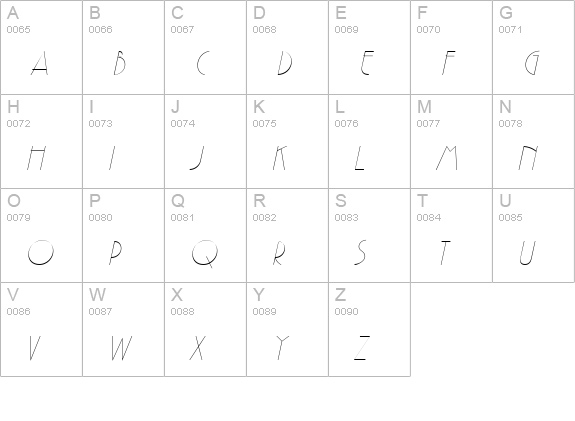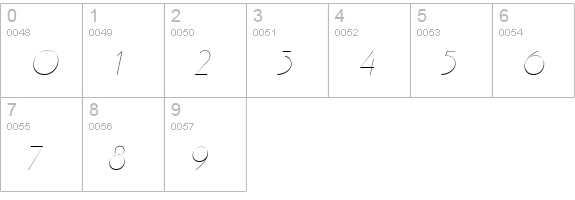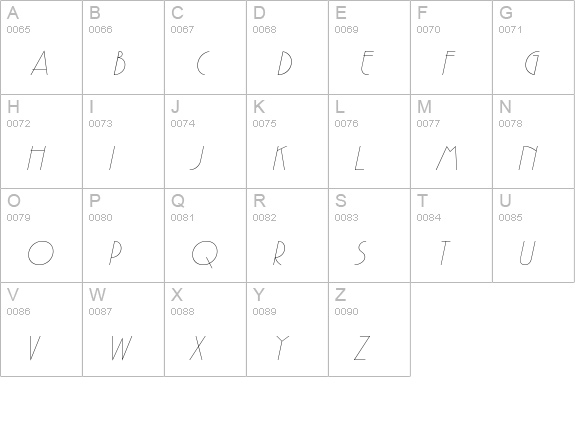
GatsbyFLF-Italic is a distinctive, italic variant in the GatsbyFLF typeface family \xE2\x80\x94 well suited to design and typography projects.
GatsbyFLF-Italic is a stunning and elegant font that exudes sophistication and style. With its graceful curves and sleek lines, this italic font captures the essence of art deco design, making it perfect for adding a touch of glamour to any project. This font boasts a unique blend of classic and contemporary elements, making it versatile and suitable for a wide range of applications. Whether you're designing a wedding invitation, creating a logo for a high-end brand, or crafting eye-catching headlines, GatsbyFLF-Italic will elevate your work to new heights. One of the best features of GatsbyFLF-Italic is that it is completely free. Yes, you read that right! This incredible font is freely available to download at FontsMarket.com. Now you can add a touch of luxury to your designs without breaking the bank. The creators of GatsbyFLF-Italic have meticulously crafted each letterform, ensuring that they flow seamlessly together to create a visually stunning and harmonious typeface. The italicized style adds a sense of movement and elegance, making your text come alive on the page. Whether you're a professional designer or a hobbyist, GatsbyFLF-Italic will quickly become your go-to font. Its timeless appeal and versatility make it a must-have in any font collection. So why wait? Head over to FontsMarket.com and download GatsbyFLF-Italic today. Your designs will thank you.